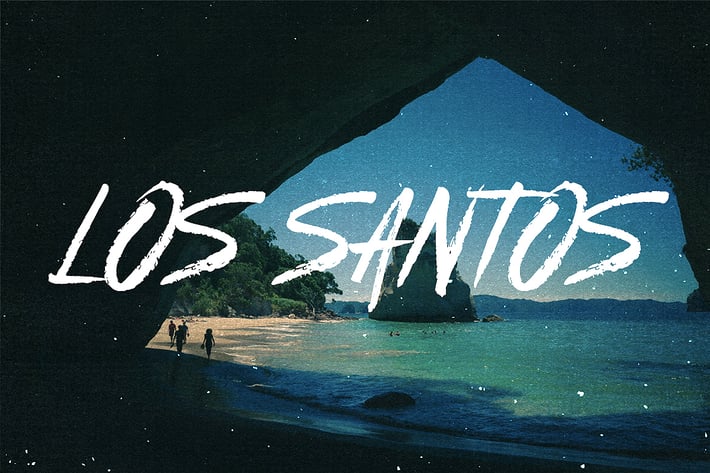
Los Santos - Typeface
Introducing "Los Santos", the Handsketched Typeface that delivers oodles of character with its bold lines.
This Font would be perfect for statement and headline pieces of typography, perhaps for Club Flyers, Advertising Campaigns, or Hero Images on a website, its extremely versatile.